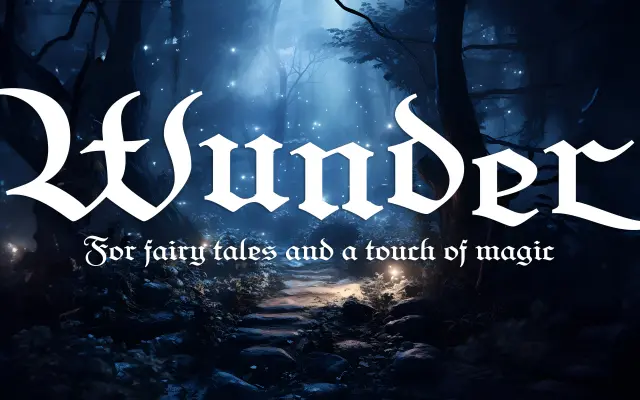
FDI Wunder
FDI Type Foundry · Heinrich Laudahn, Ralf Herrmann · 2023
A careful revival of Heinrich Laudahn's 1913 Laudahn-Kanzlei chancery blackletter, issued in two versions: one faithful to the original and one with romanised letterforms for broader legibility.
Based on scans of original letterpress type from Bauer's 1913 release, FDI Wunder preserves the calligraphic character of the Kanzlei style while making it usable in modern OpenType environments. Version A keeps close to the historical source for traditional German blackletter setting; Version B substitutes romanised letterforms to ease reading for audiences unfamiliar with the script. Both versions include contextual swash characters that activate automatically at word boundaries and an experimental title-case feature that introduces a dancing baseline.
A revival of Laudahn-Kanzlei, a 1913 chancery blackletter originally released by Bauer; the Kanzlei (chancery) style is a distinct blackletter subcategory characterised by flowing, calligraphic strokes.